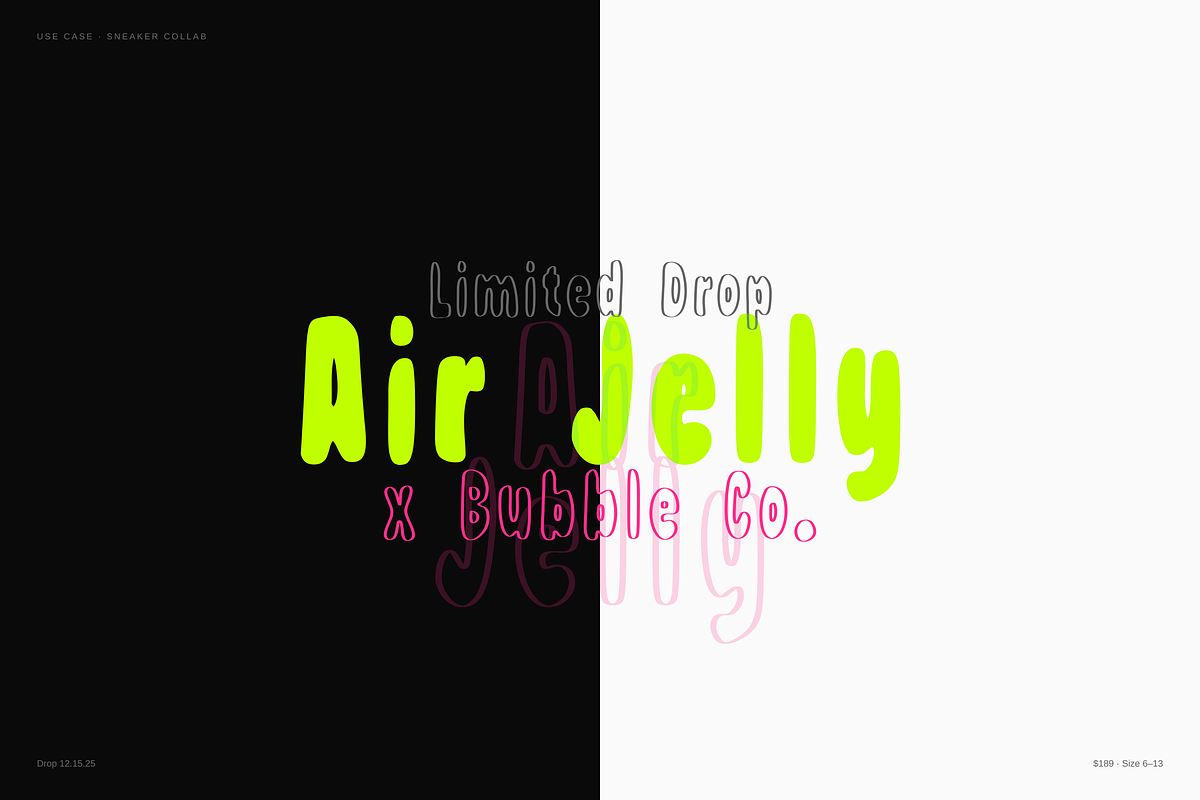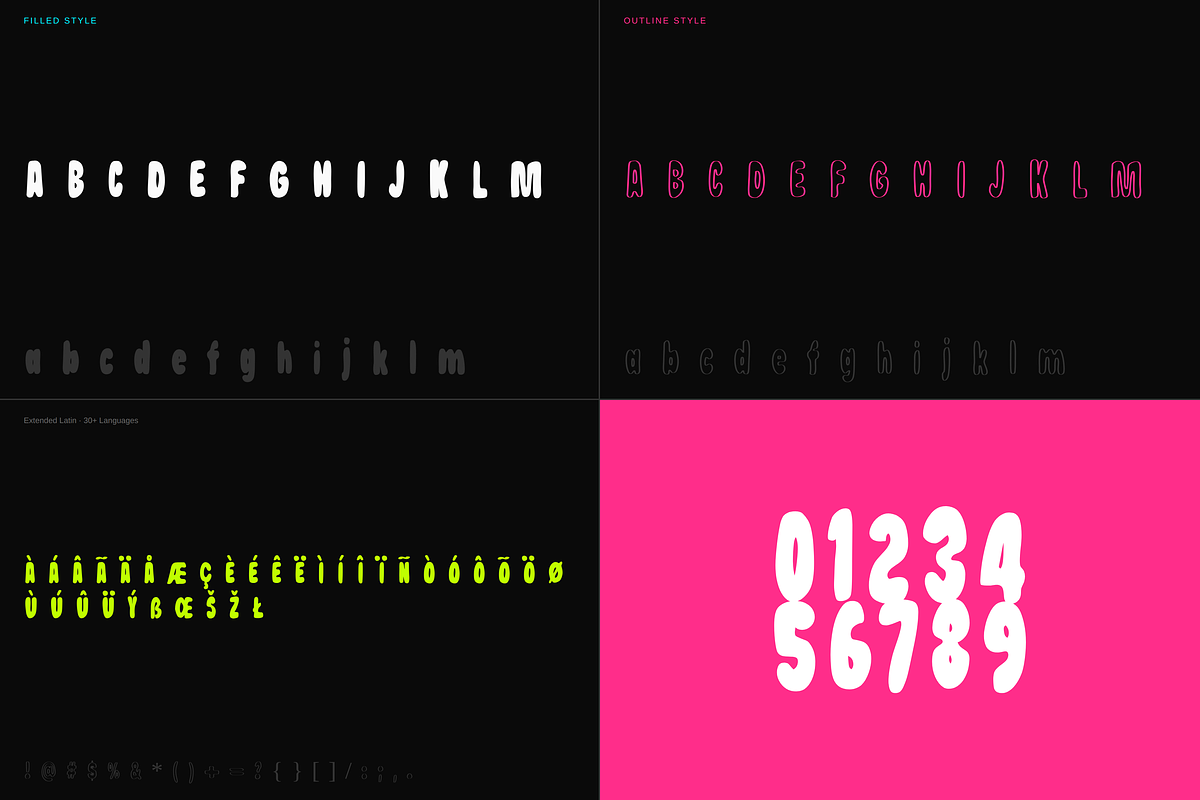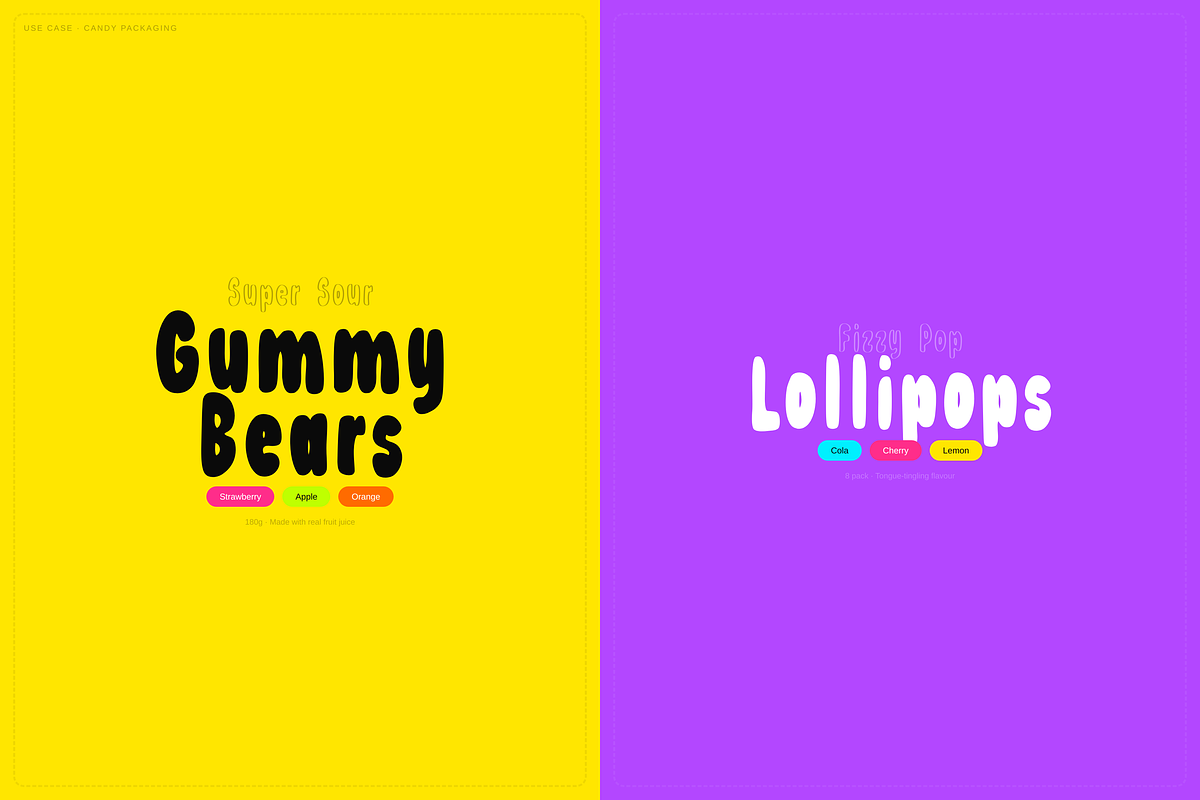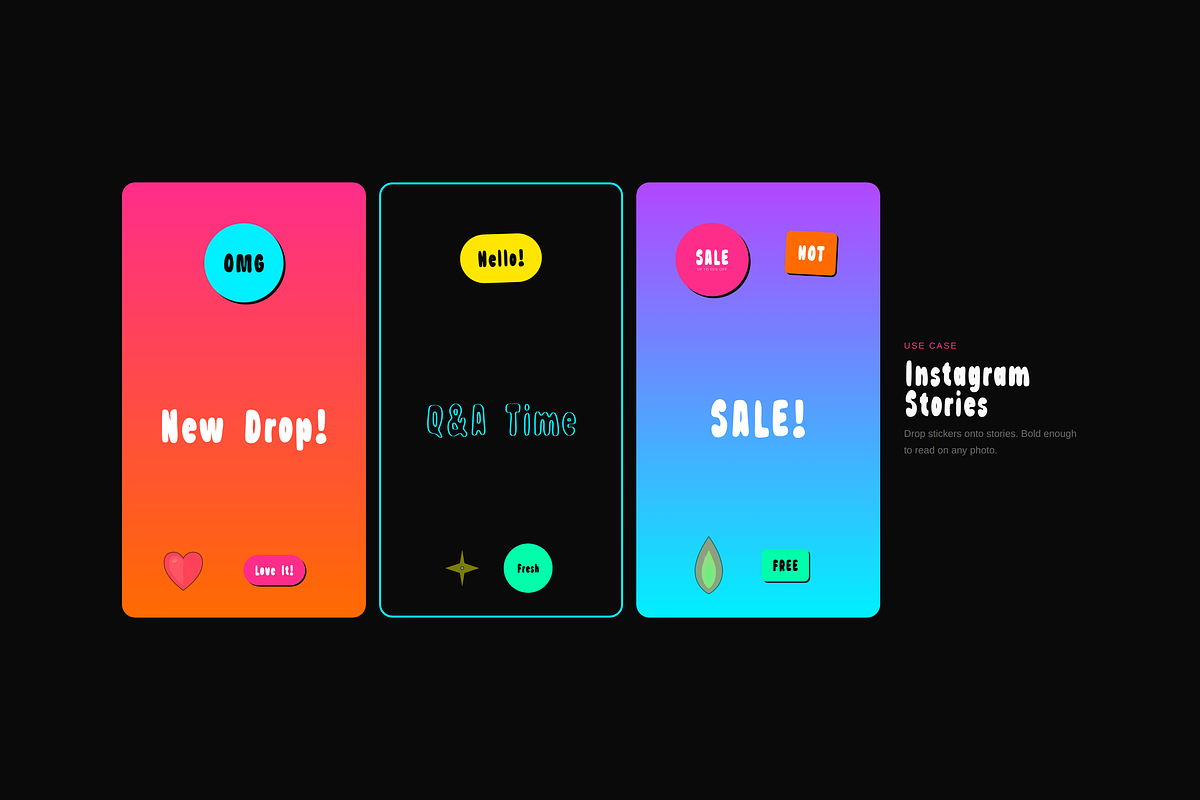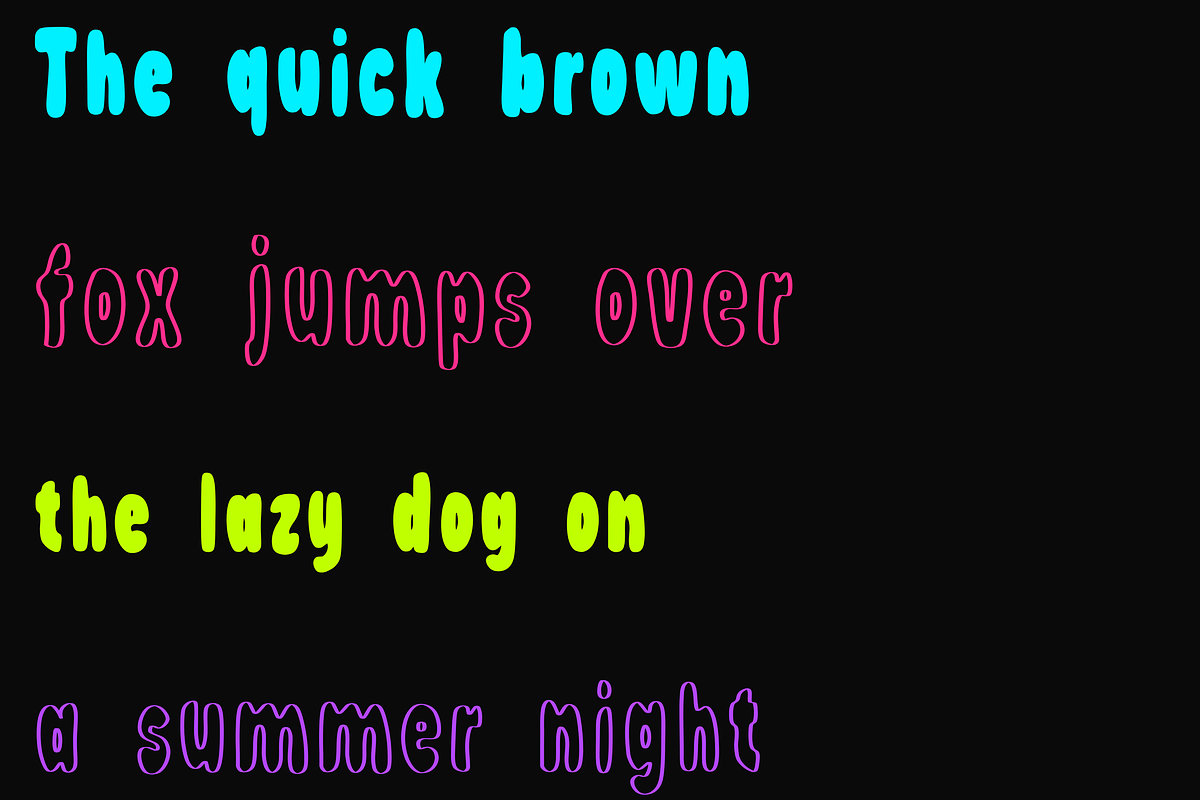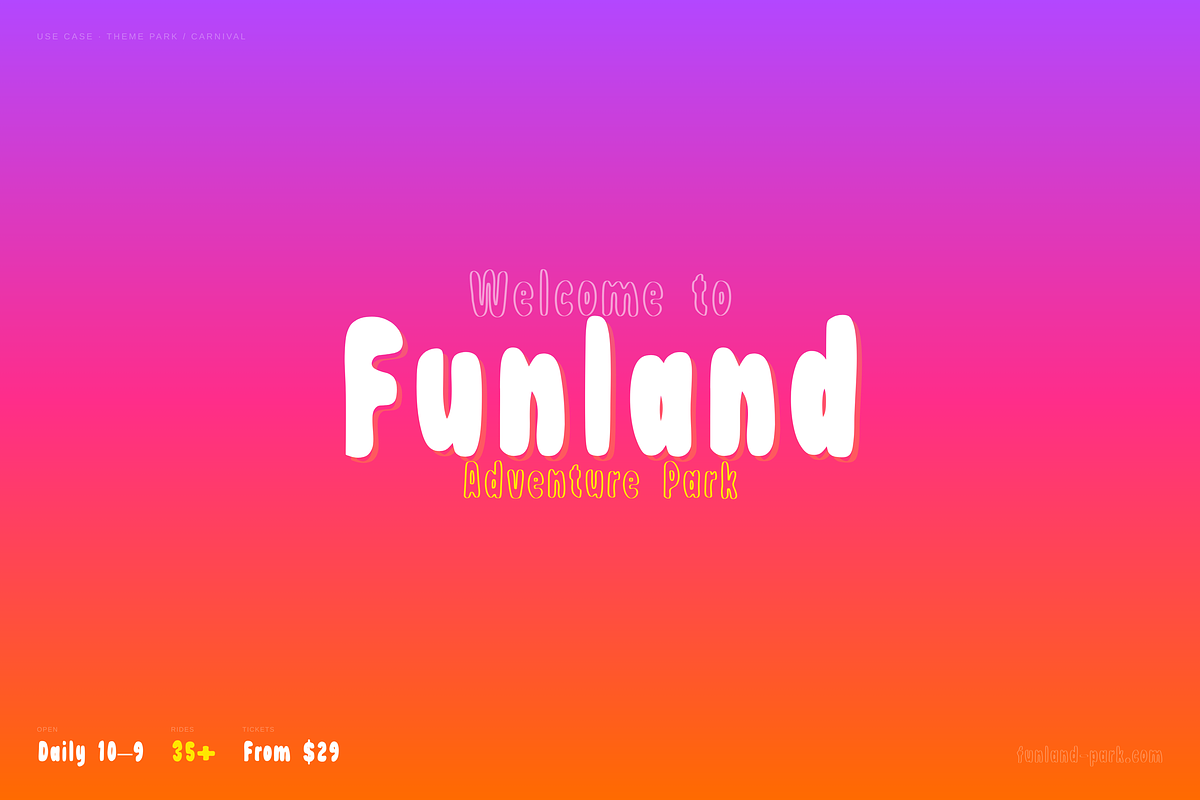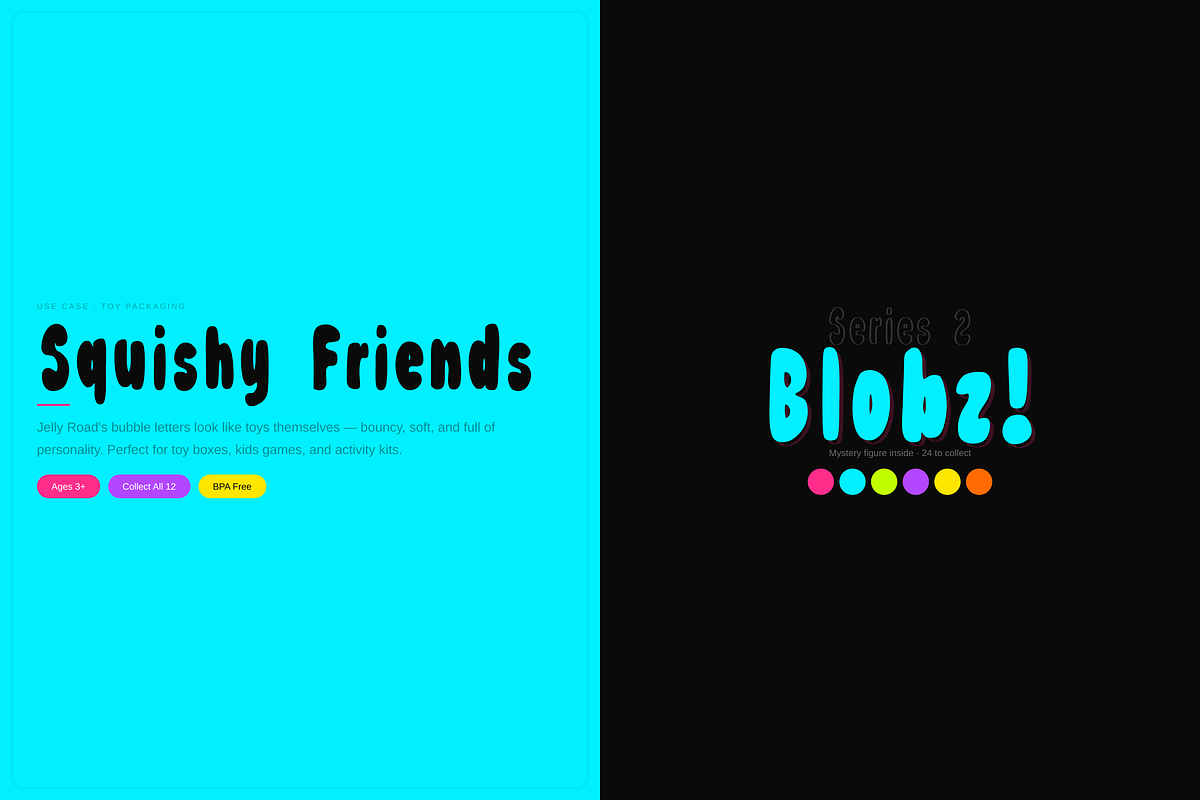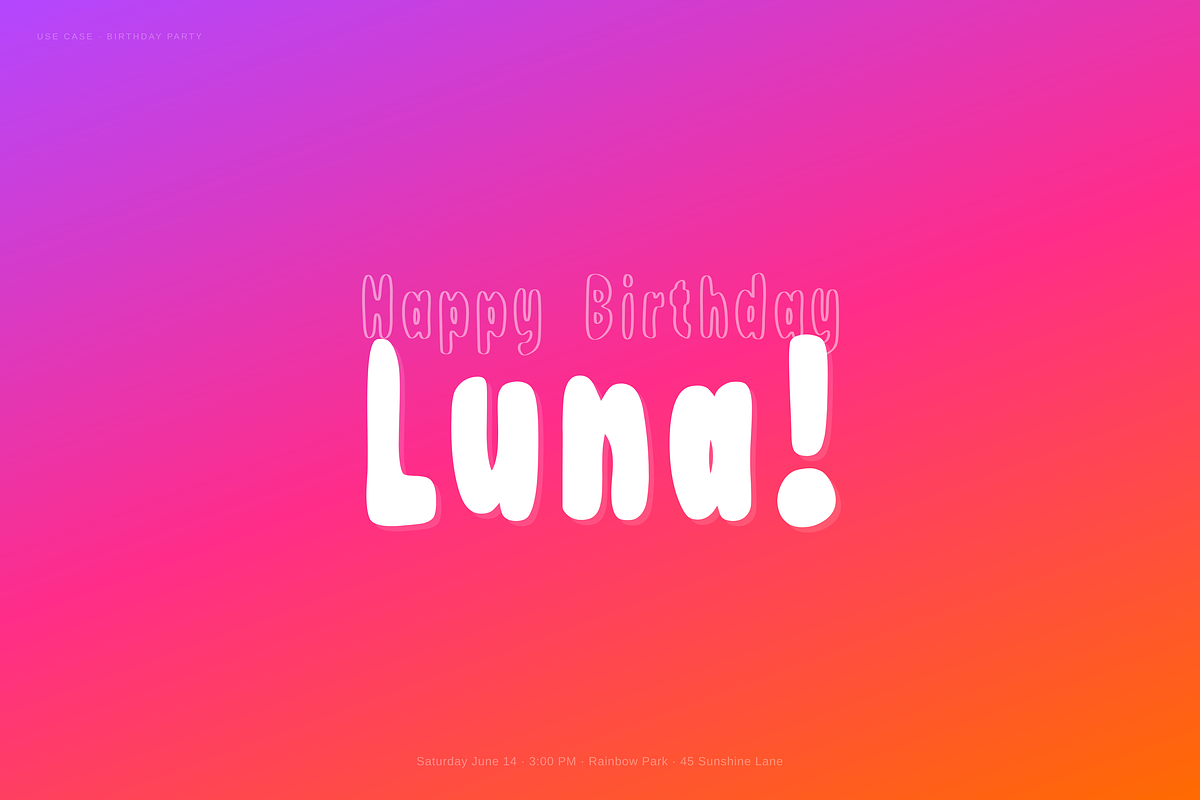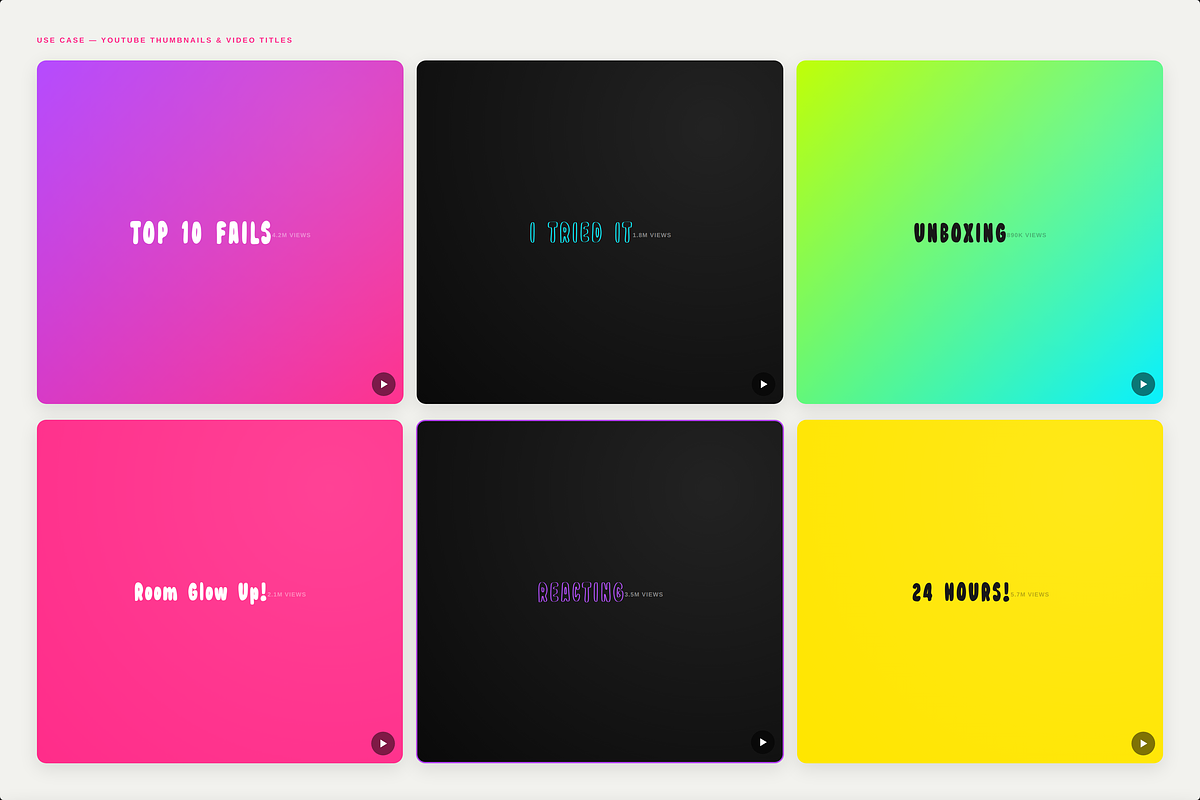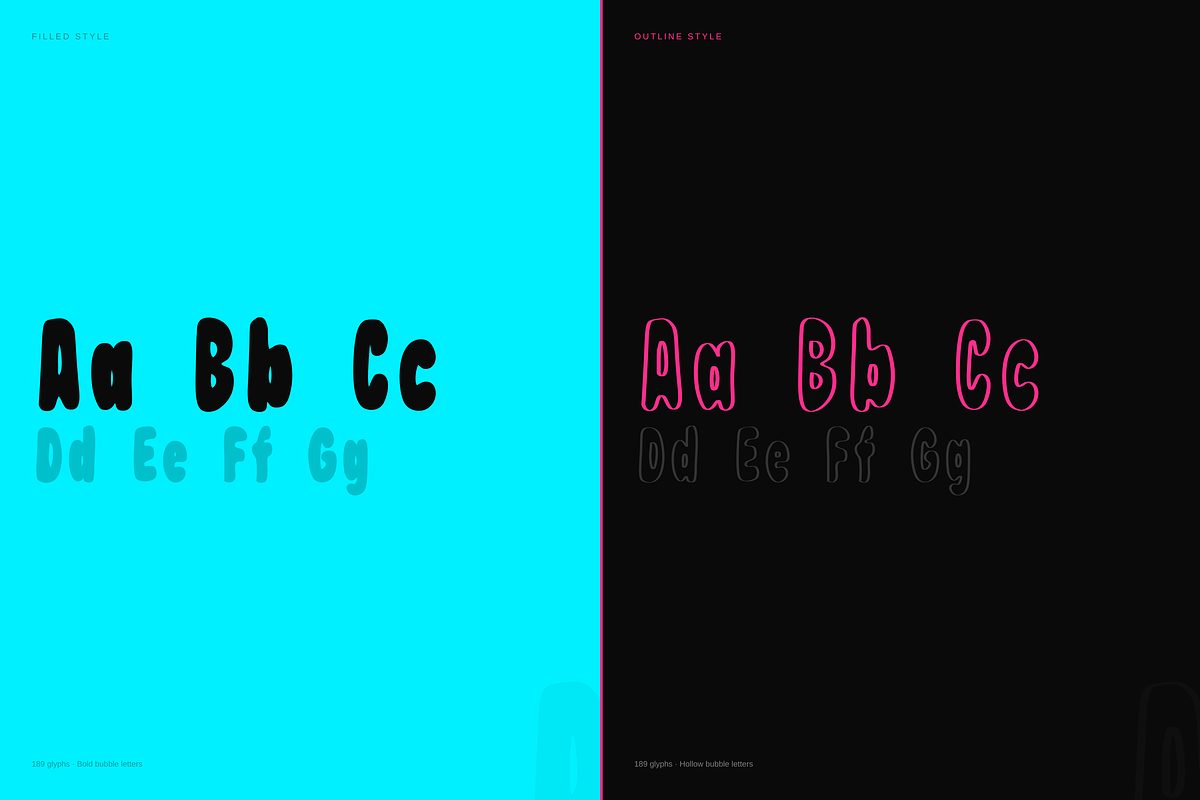
Jello — Bubble Display Font Duo
Jello — Bubble Display Font Duo + Illustrations + Stickers
Introducing Jello — a playful bubble display font duo that comes loaded with bonuses. You get two complete fonts (Filled + Outline), 20 hand-drawn illustrations, and 30 ready-made text stickers — everything you need to create fun, eye-catching designs instantly.
The Filled style is bold, solid, and punchy — perfect for headlines that demand attention. The Outline style is light, airy, and layerable — ideal for neon effects, overlays, and stacking on top of photos or the filled version. Together, they give you unlimited creative freedom.
- Ice cream shops & sweet brands
- Birthday invitations & party designs
- Gaming channels & Twitch overlays
- YouTube thumbnails & video titles
- Sneaker collabs & streetwear
- Smoothie bars & juice brands
- Social media posts & Instagram stories
- Sticker packs (iMessage, WhatsApp, Telegram)
- E-commerce banners & promo materials
- Kids brands & toy packaging
- Playlist covers (Spotify, Apple Music)
- Laptop & phone stickers
Why Jello? Most bubble fonts give you one style and zero extras. Jello gives you a complete design kit — two fonts that work together, 20 matching illustrations you can drop into any project, and 30 text stickers ready to use as-is. No Photoshop required for the stickers — just drag, drop, done.